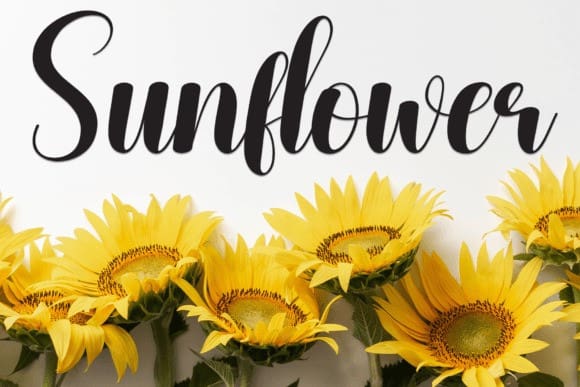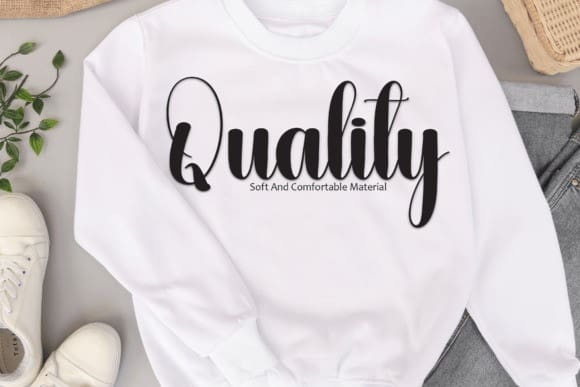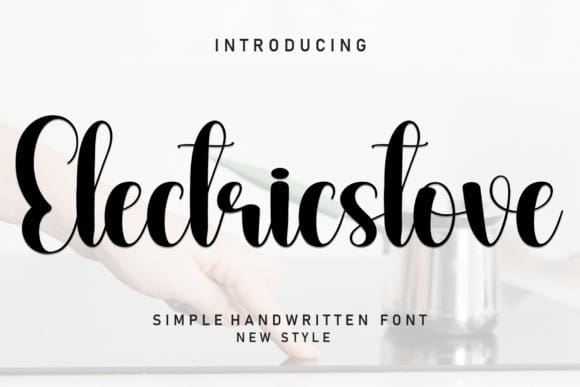
Electricstove Script Font
Electricstove Script Font is an electrifying script and handwritten typeface that ignites creativity and sparks imagination. With its energetic and dynamic letterforms, it brings a burst of energy to any design project. Perfect for branding, headlines, posters, and other designs that demand a bold and captivating presence.